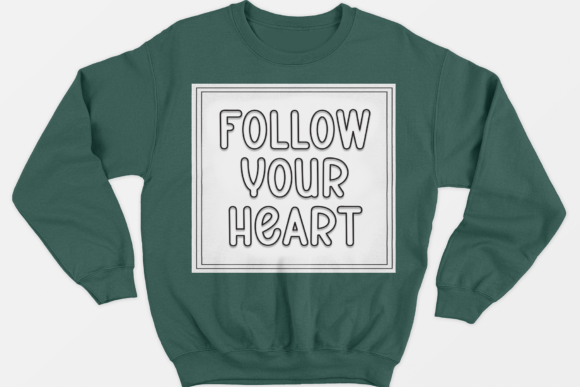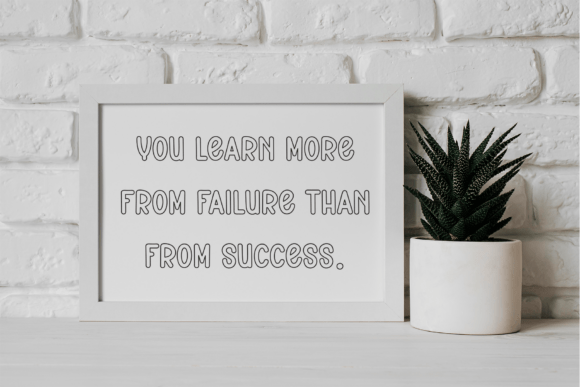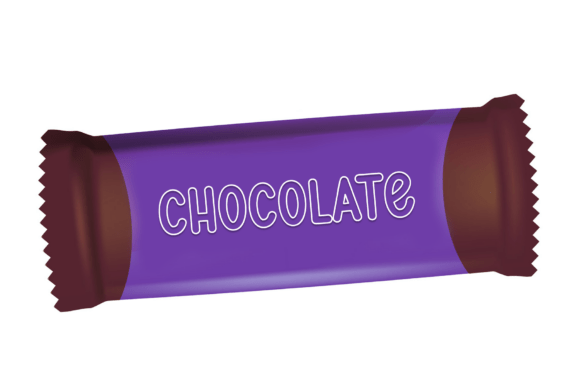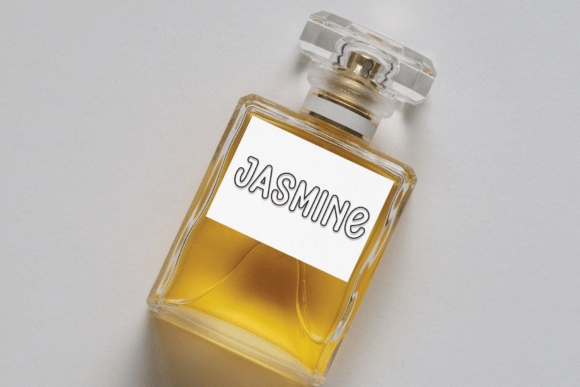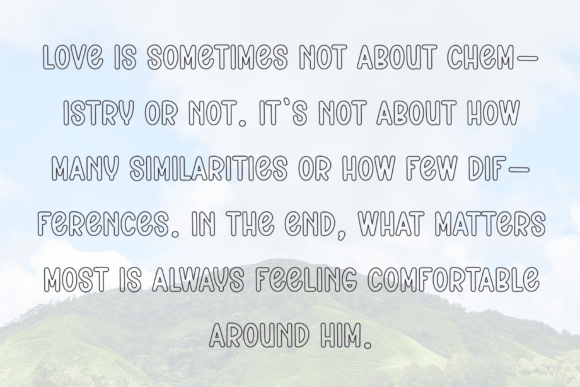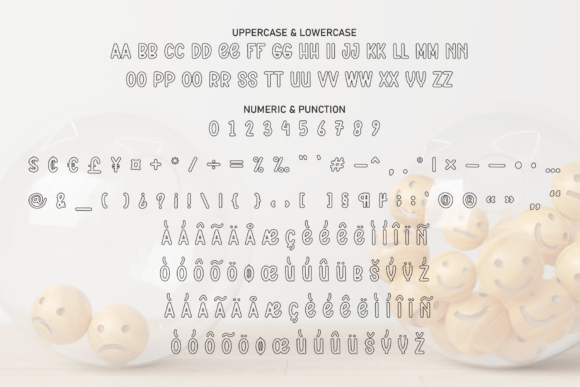
Discover the Whimsy of Bubble Mood Font
As a designer, there’s nothing quite like the rush of excitement that comes with creating something new – the spark of an idea, the thrill of experimentation, and the joy of bringing a concept to life. For me, it’s often in those quiet moments of inspiration that I stumble upon the perfect font to elevate my design. And that’s exactly what happened when I discovered the charming Bubble Mood Font.
This delightful handwritten display font is more than just a pretty face – it’s a symphony of style that combines sweetness and friendliness in perfect harmony. With its innocent aura, it’s the perfect choice for composing wedding invitations or cards that are sure to capture hearts. Whether you’re a seasoned designer or just starting out, Bubble Mood Font is a valuable addition to your toolkit, offering a touch of fun and playfulness that’s sure to elevate any design.
Bubble Mood Font Key Features
- Font Family: Bubble Mood is a sans-serif font family with a unique, playful design.
- Size: The font family comes in 6 font weights, ranging from Light to Extra Bold, to cater to various design needs.
- Unique Characteristics: The font features a distinctive bubble-like design, with rounded edges and smooth curves, perfect for creating a friendly and approachable atmosphere in designs.
Bubble Mood Font Review
As a designer, I was excited to dive into the Bubble Mood Font, and here’s my honest take on it.
- Unique and playful style: The Bubble Mood Font has a distinctive look that’s perfect for adding a touch of whimsy to your designs.
- Easy to read: Despite its playful style, the font is surprisingly easy to read, making it a great choice for body text or headlines.
- Wide character set: The font includes a wide range of characters, including punctuation, numbers, and special characters, making it a versatile choice for various projects.
- May not be suitable for formal projects: The Bubble Mood Font is best suited for casual or creative projects, as its playful style may not be suitable for more formal or professional projects.
- Limited support for complex scripts: The font may not support complex scripts or languages, which could be a limitation for designers working on international projects.
Overall, I think the Bubble Mood Font is a great choice for designers looking to add a playful touch to their projects. While it may not be suitable for all projects, its unique style and easy-to-read design make it a versatile and fun font to work with.
The Bubble Mood Font is ideal for creating playful, whimsical designs and adding a touch of personality to your content. Use it for social media graphics, blog posts, and marketing materials to make a lasting impression on your audience.
To get the most out of the Bubble Mood Font, experiment with different font sizes, colors, and styles to create a unique look. Pair it with bold, eye-catching graphics and images to add visual interest to your design.